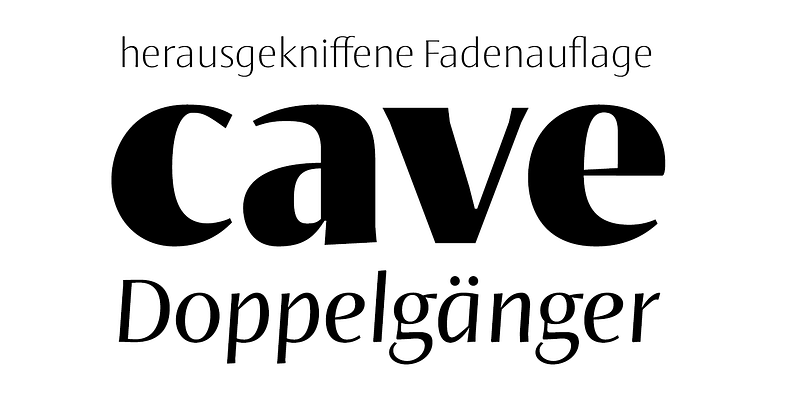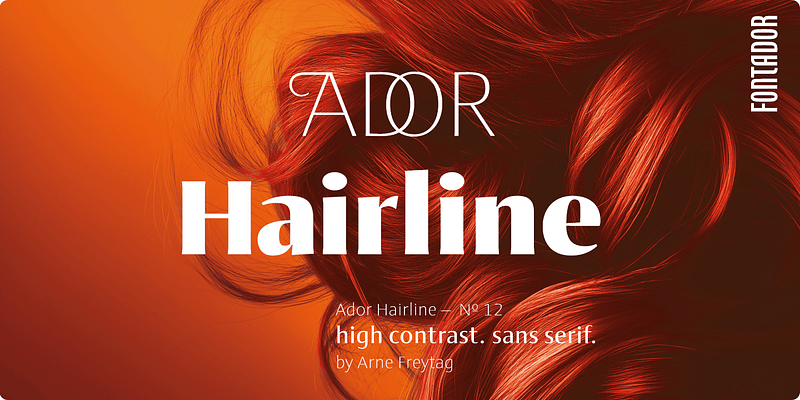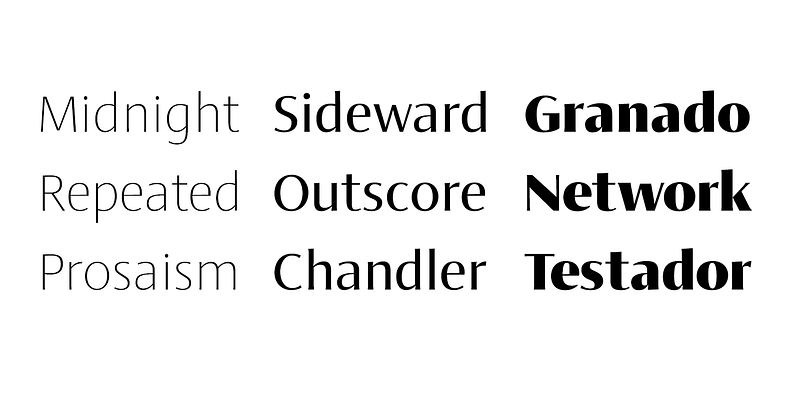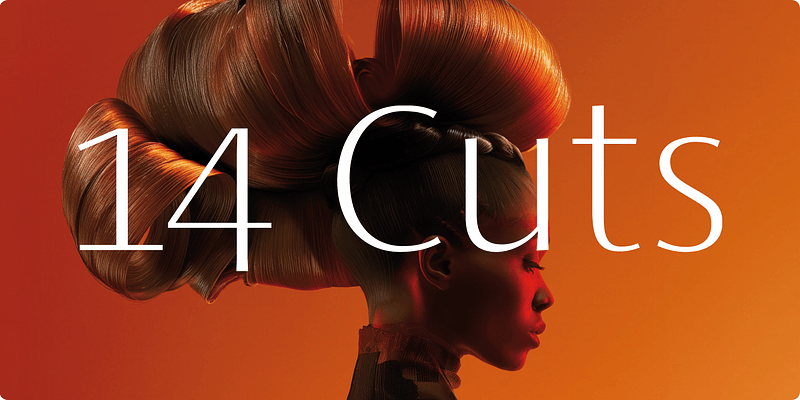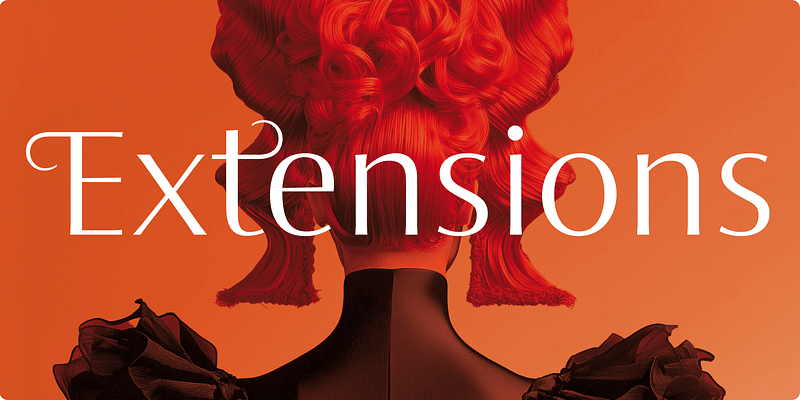
A humanist sans serif that falls in the “evil serif” genre, especially designed for contemporary typography and comes up with 7 weights from extralight to black plus true italics and 293 ligatures and initial letters. A large x-height not only creates space in the letters for extra-bold styles, but also lends Ador Hairline an open and generous character in the more narrow and semi-bold versions. The nice balance between sharp ink trapped and soft, dynamic shapes helps to work in small sizes. Diagonal stress, angled finials and the 4 degree true italic styles give Ador Hairline a dynamic look. The font contains 1,026 glyphs and a wide range of flexibility for Latin language support for every typographical need. Ador Hairline is a contemporary sans serif typeface, special for logotypes, brands, magazines, editorial, and advertising uses.
Ador Hairline was on the shortlist of Communication Arts 2020.